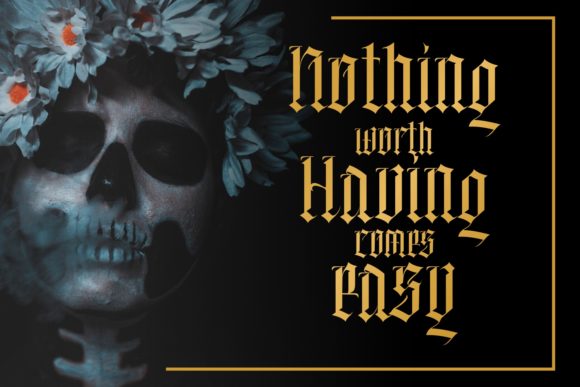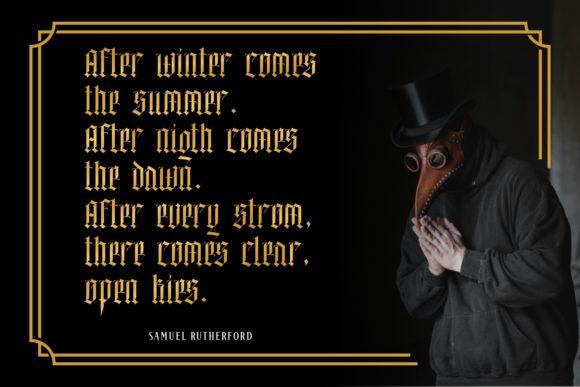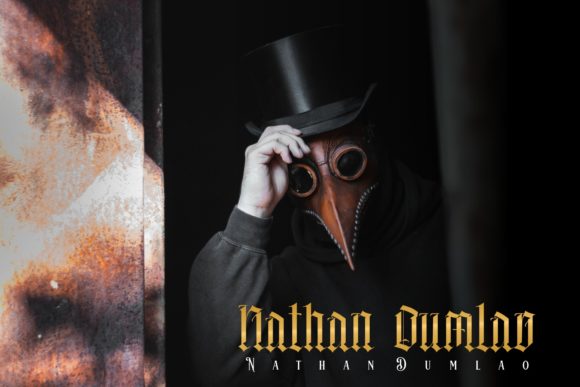
Introducing Automatica Font: The Authentic Blackletter Font for Rustic Designs
Are you a designer or crafter looking for a font that adds a touch of rustic charm to your creations? Look no further than Automatica Font, a stunning blackletter font designed with attention to detail. In this article, we’ll dive into the world of Automatica Font, exploring its features, benefits, and uses, and why it’s a must-have for anyone looking to add a vintage flair to their designs.
What is Automatica Font?
Automatica Font is a carefully crafted blackletter font that exudes an authentic, rustic feel. Its unique design makes it perfect for creating eye-catching titles, headings, and text elements that demand attention. Whether you’re working on a branding project, packaging design, or crafting a logo, Automatica Font is sure to bring a touch of nostalgia and character to your work.
Key Features of Automatica Font
- Authentic Blackletter Design: Automatica Font boasts an authentic blackletter design, complete with intricate details and ornate flourishes.
- Attention to Detail: The font has been crafted with meticulous attention to detail, ensuring that every letterform, stroke, and curve is perfect.
- Rustic Look and Feel: Automatica Font has a distinctly rustic feel, making it perfect for designs that require a vintage or distressed look.
- High Versatility: The font is highly versatile, suitable for use in a wide range of design applications, from titles and headings to logos and packaging.
Benefits of Using Automatica Font
So why choose Automatica Font for your design projects? Here are just a few benefits of using this amazing font:
- Adds Character to Your Designs: Automatica Font brings a unique character to your designs, setting them apart from more generic fonts.
- Evokes a Sense of Nostalgia: The font’s rustic, vintage feel evokes a sense of nostalgia, making it perfect for designs that require a classic or retro look.
- Enhances Brand Identity: By using Automatica Font, you can create a distinctive brand identity that resonates with your target audience.
- Easily Readable: Despite its ornate design, Automatica Font is surprisingly easy to read, making it suitable for use in body text as well as headings.
Who Can Benefit from Automatica Font?
Automatica Font is a versatile font that can benefit a wide range of designers and crafters, including:
- Graphic Designers: Looking for a unique font to add to their collection, or to use in client projects.
- Crafters and Makers: Creating handmade products, such as signs, labels, or packaging, that require a personal touch.
- Branding Experts: Seeking to create a distinctive brand identity for their clients or their own business.
- Stationery and Card Makers: Looking for a font that adds a touch of elegance and sophistication to their designs.
How to Use Automatica Font in Your Designs
Using Automatica Font in your designs is easy! Here are a few tips to get you started:
- Pair with Other Fonts: Combine Automatica Font with other fonts to create a unique and eye-catching typography combination.
- Experiment with Colors: Try out different colors and textures to enhance the rustic feel of the font.
- Use in Titles and Headings: Automatica Font is perfect for use in titles, headings, and text elements that require a bold, attention-grabbing font.